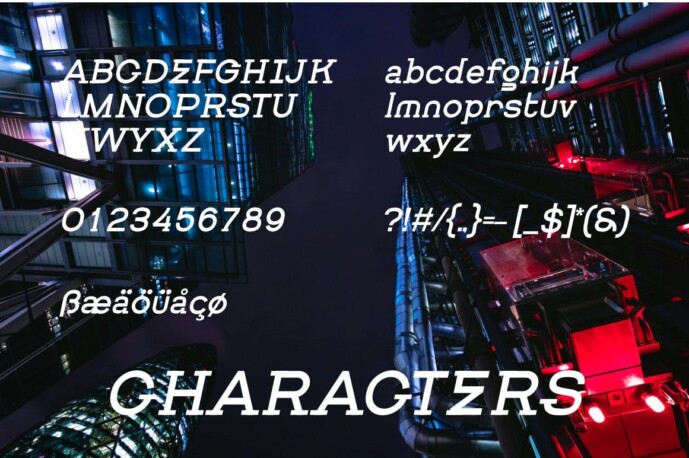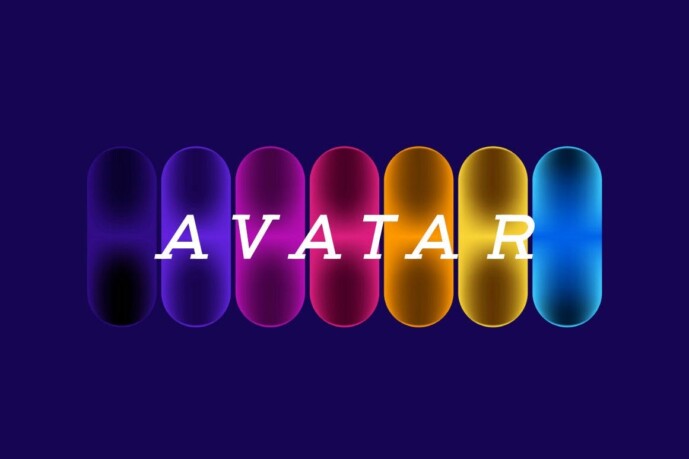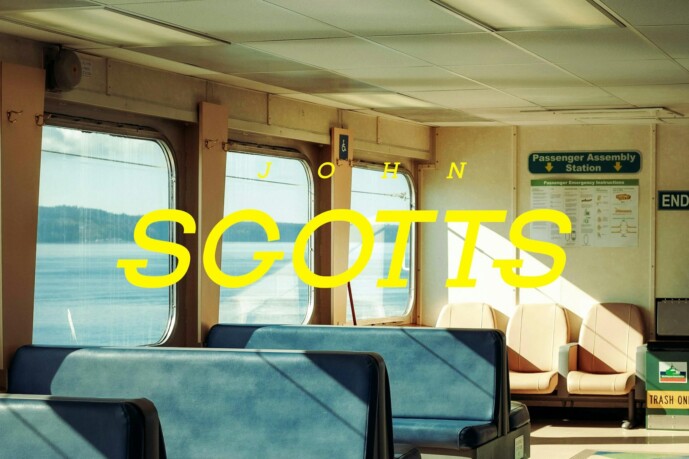
Getboreg Slab Font
Getboreg Slab Font, eliminate clutter and grab attention with a powerful, dynamic serif font for your ads. This unique typeface combines the modern edge of clean serifs with the solid foundation of thick plates, creating a visually striking presence that demands to be seen